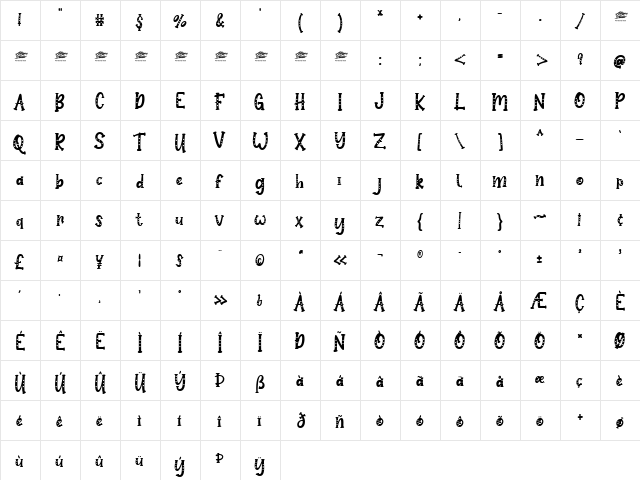
Baby Snowman Display - PUL Regular
| Foundry | Attype Studio |
| Designer | Fadli Ramadhan Iskandar |
Design Context for Baby Snowman Display - PUL Typeface
Baby Snowman Display - PUL is built around its visual character rather than neutral utility — its distinctive forms are designed to make an impression at display sizes.
Font Pairing: Pair with a clean neutral sans-serif for body copy to let Baby Snowman Display - PUL's character lead without overwhelming the composition.
Pro Tip: Treat Baby Snowman Display - PUL as the centrepiece of your typographic hierarchy. One strong heading set in a decorative face can carry an entire layout.